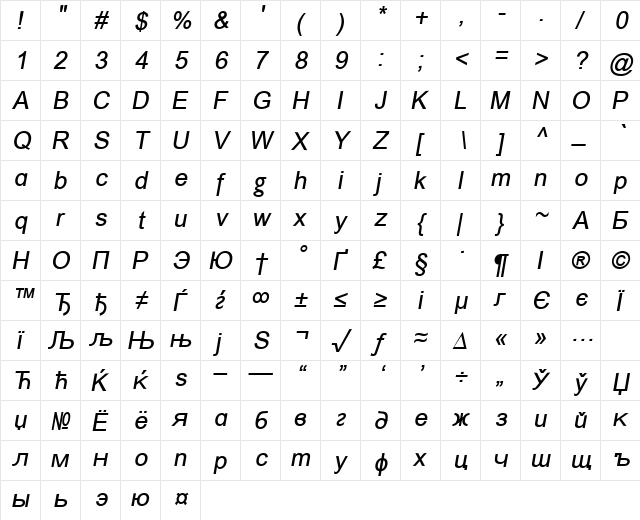
ER Univers Mac Italic
Design Context for ER Univers Mac Typeface
ER Univers Mac is a composed and adaptable typeface that performs quietly and consistently across a wide range of design contexts. The dynamic lean of this cut emphasises speed and emphasis in any layout.
Pro Tip: Use ER Univers Mac for emphasis, pull quotes, and subheadings where its slanted energy can add rhythm to the layout.